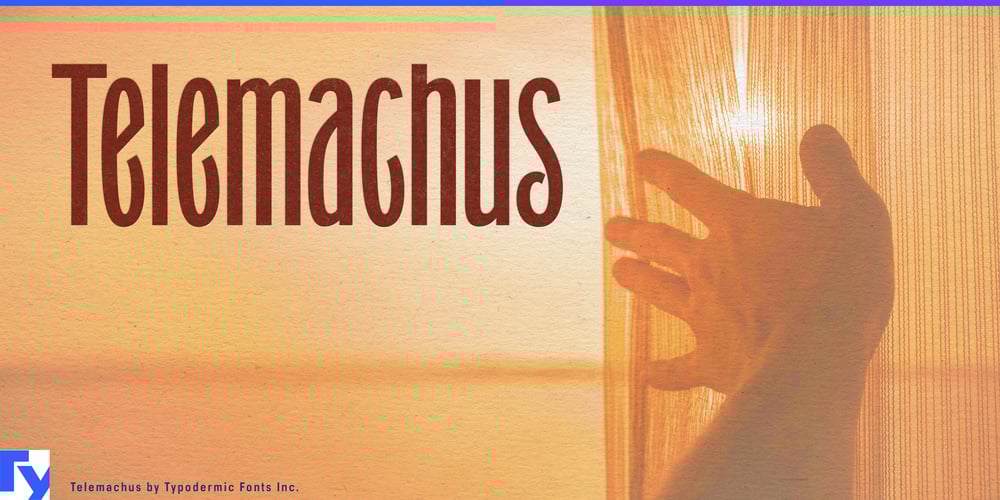
Telemachus
Telemachus font
Telemachus Font Family was designed by Ray Larabie and published by Typodermic. Telemachus contains 16 styles and family package options. Step into the world of Telemachus, where typography becomes a time-traveling adventure. This masterful creation from Typodermic Fonts doesn’t just nod to the past—it shakes hands with it, then strolls confidently into the present.Imagine a typeface that whispers tales of 19th-century printing presses while speaking fluently to modern design sensibilities. That’s Telemachus. It’s like finding a beautifully preserved pocket watch that not only tells time but also predicts the future. Telemachus takes the best of Grant No. 2’s distinguished serifs and those sharp, tapered curls, then strips them down to their essence. The result? A sleek, sans-serif silhouette that’s narrow enough to slide into tight spaces but bold enough to command attention. It’s not trying to be the coolest kid on the block—it’s the quiet confidence of knowing your great-grandfather’s suit is suddenly back in fashion.With eight weights ranging from whisper-thin to unapologetically heavy, each accompanied by its italic counterpart, Telemachus gives you a full wardrobe of typographic options. It’s like having a time machine with 16 settings, each one ready to transport your designs to a perfect blend of then and now. Telemachus speaks volumes in dozens of languages, from Afrikaans to Zulu, making it a polyglot’s dream. It’s ready to tell your story across borders and through time, proving that good design truly is a universal language.So, why settle for a typeface that’s stuck in one era when you can have Telemachus—a typeface that’s comfortable in any decade? Download it now and watch as your designs bridge centuries with effortless grace. With Telemachus, you’re not just choosing a font; you’re making history… stylishly.